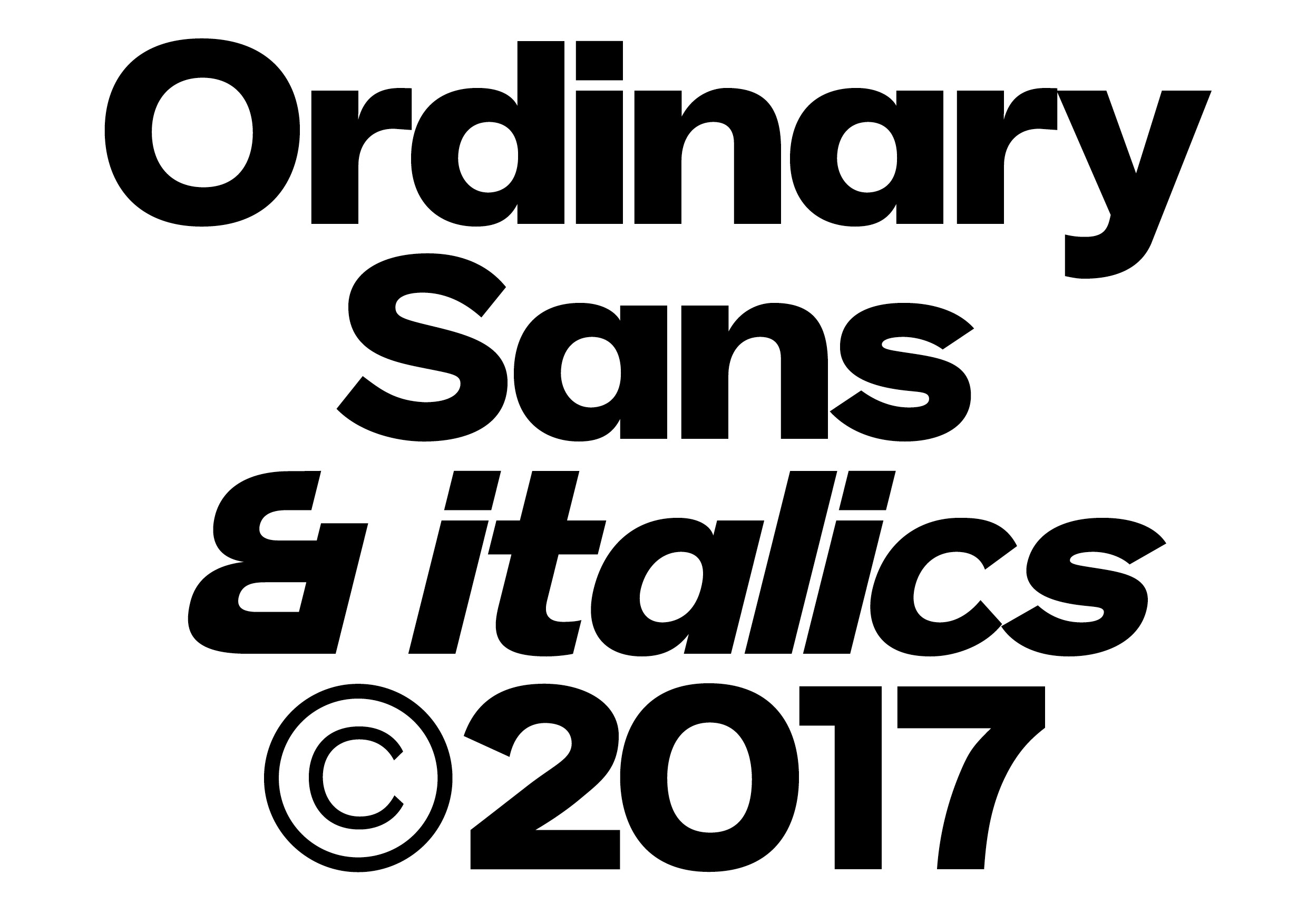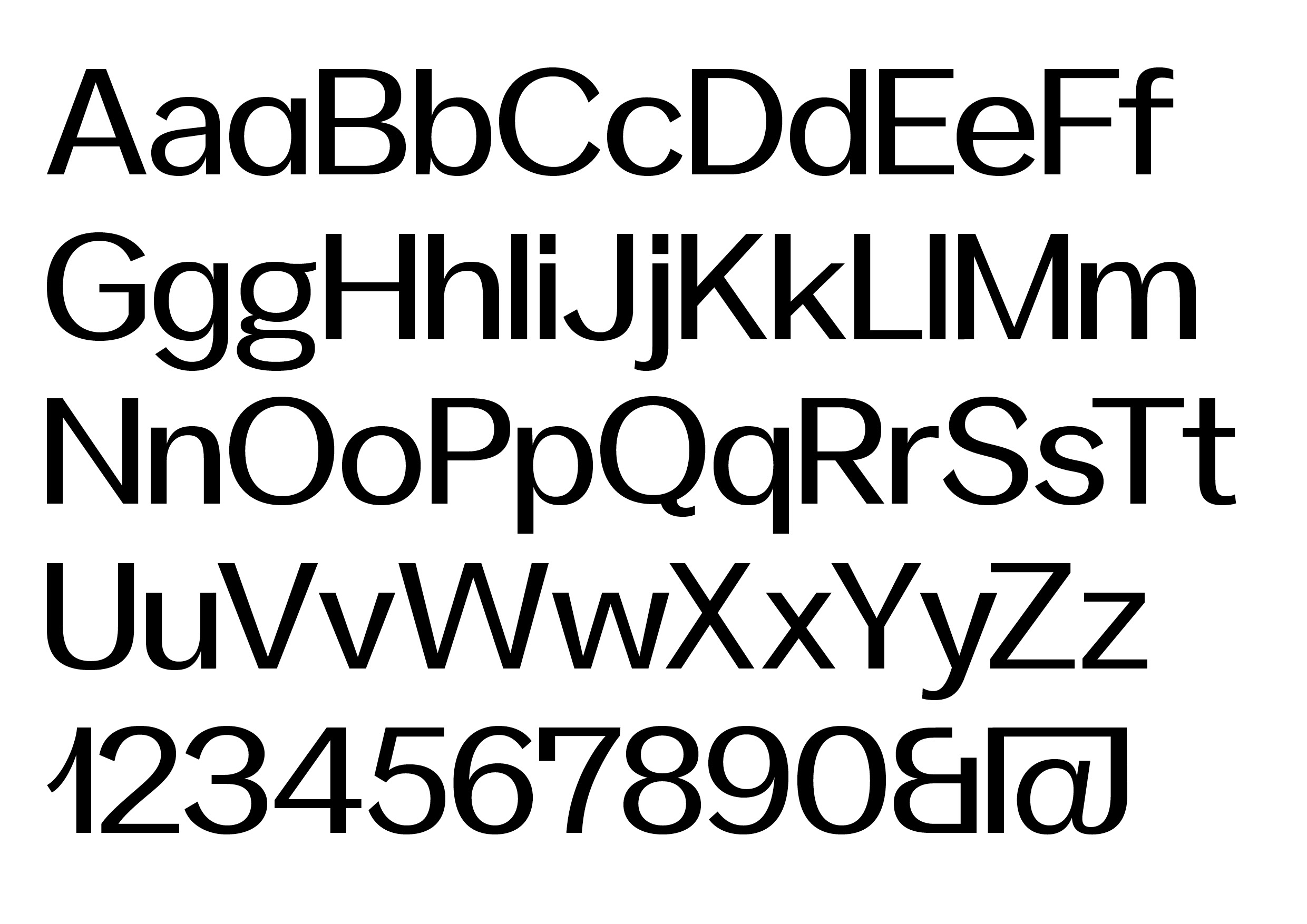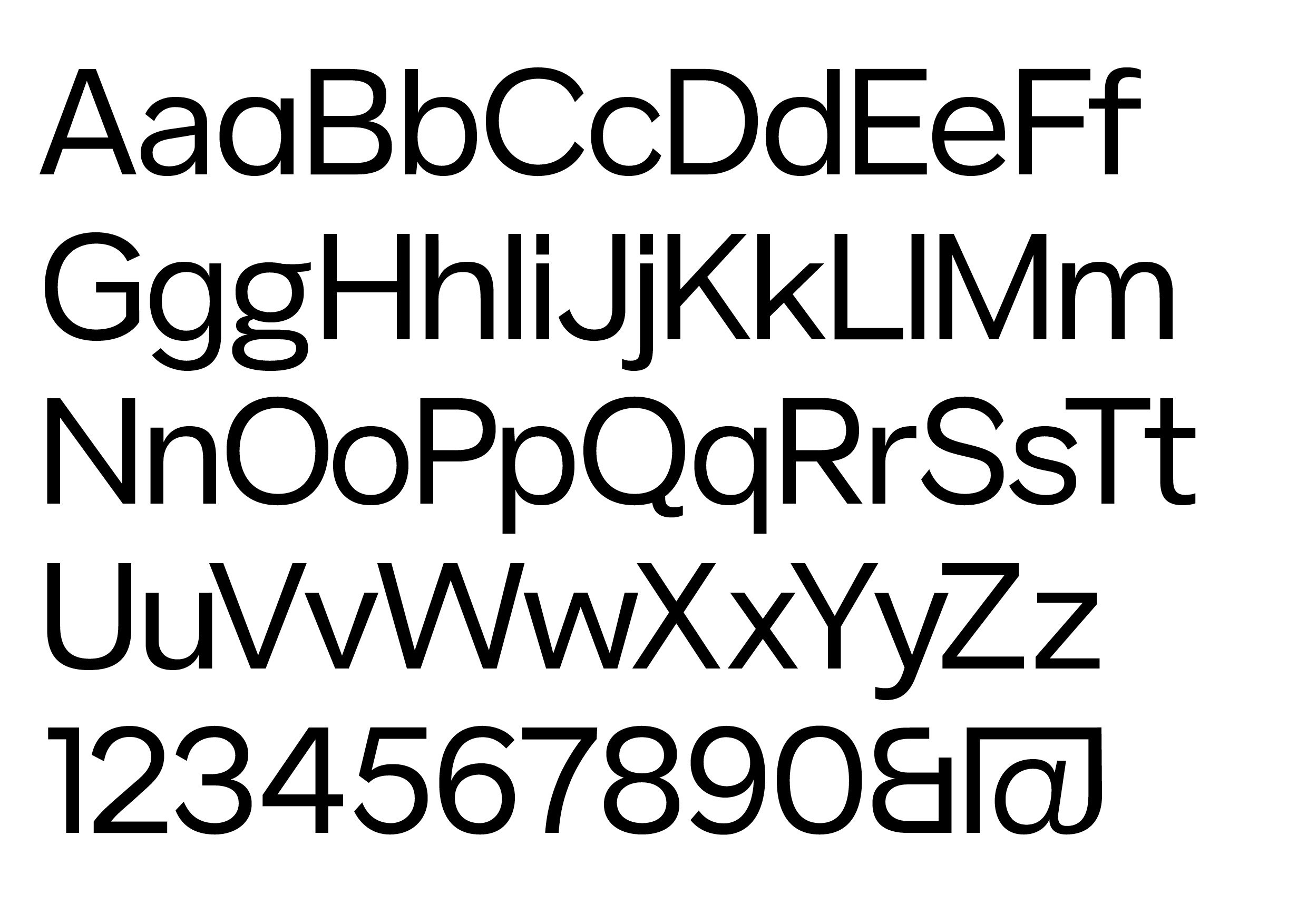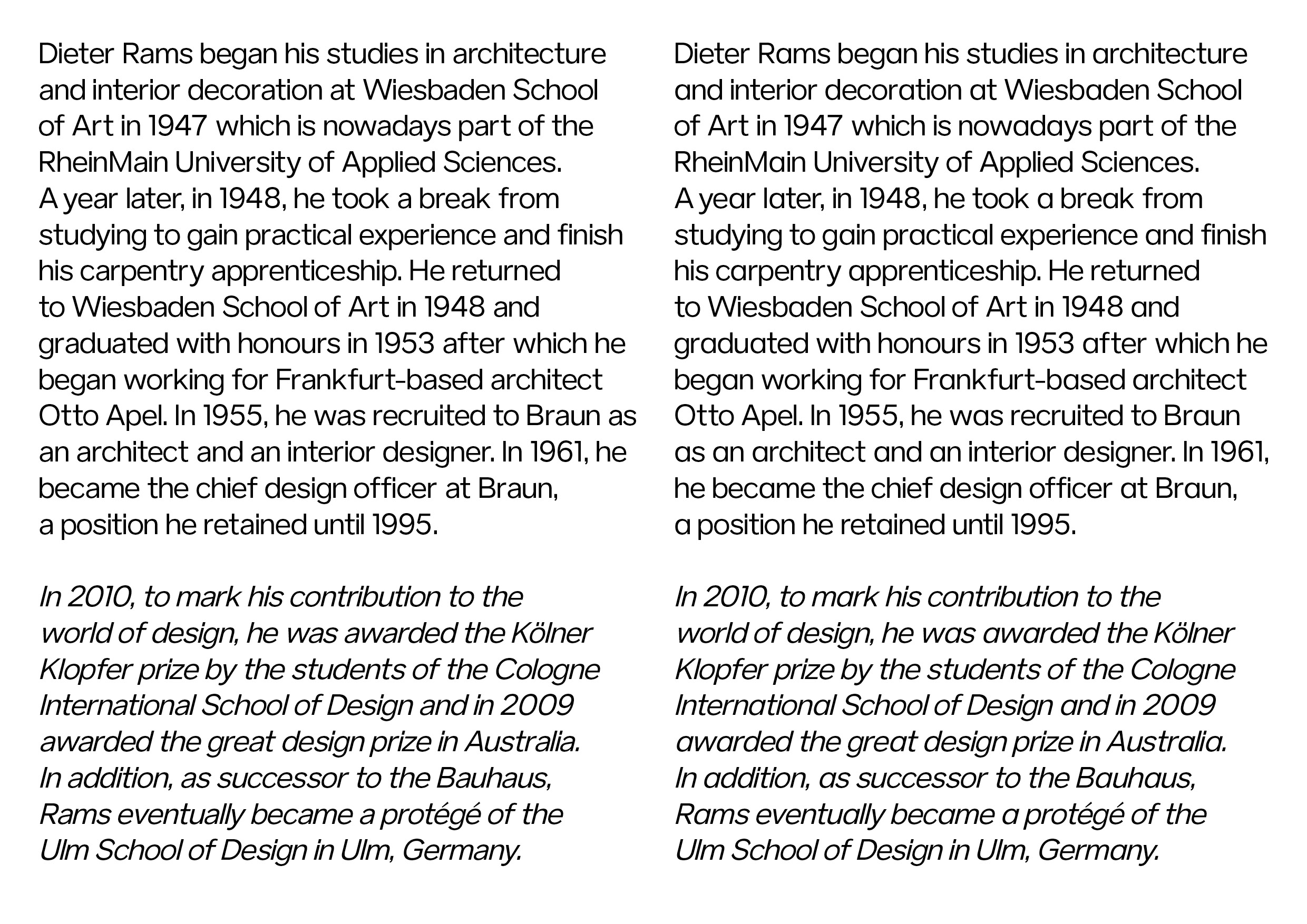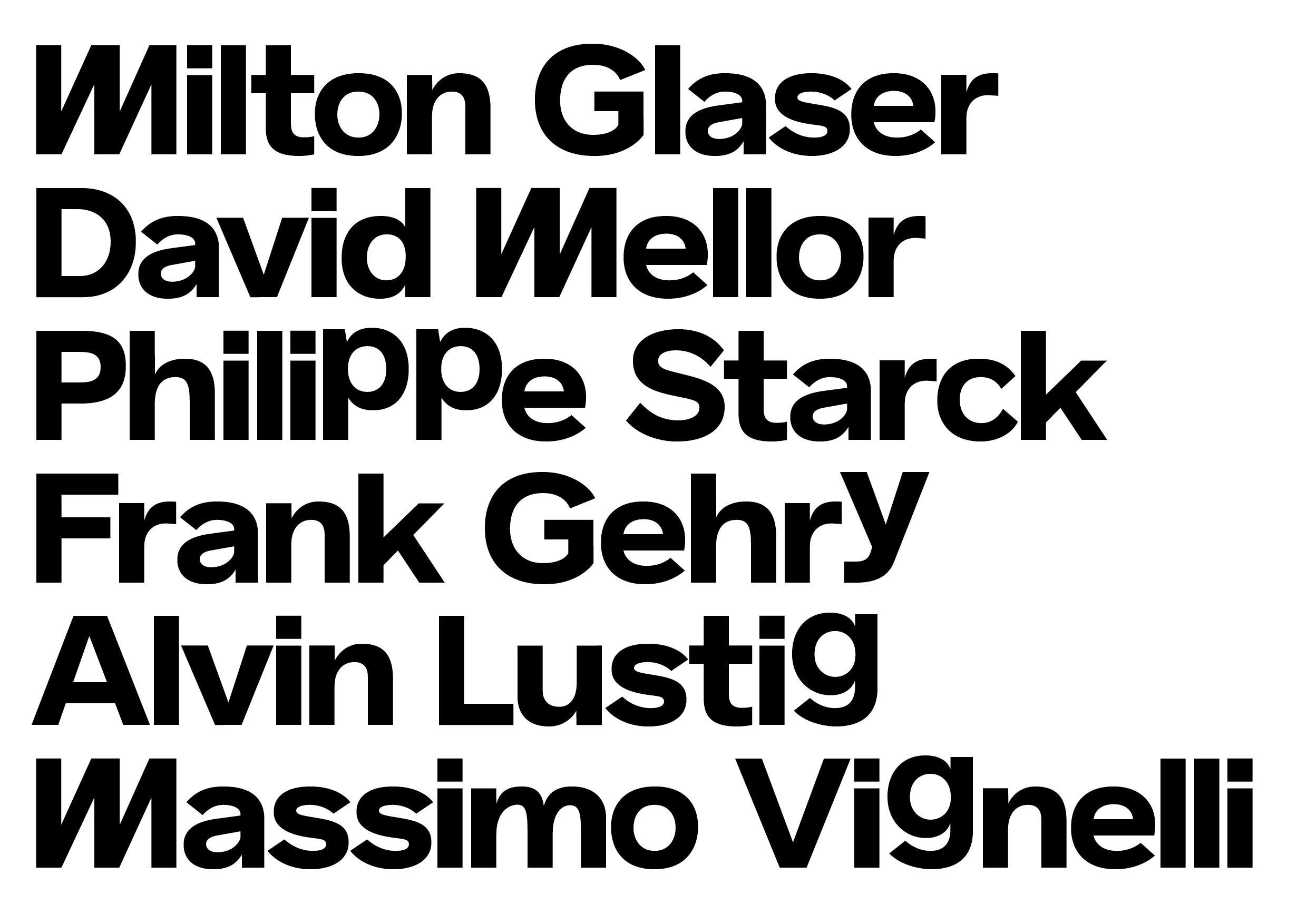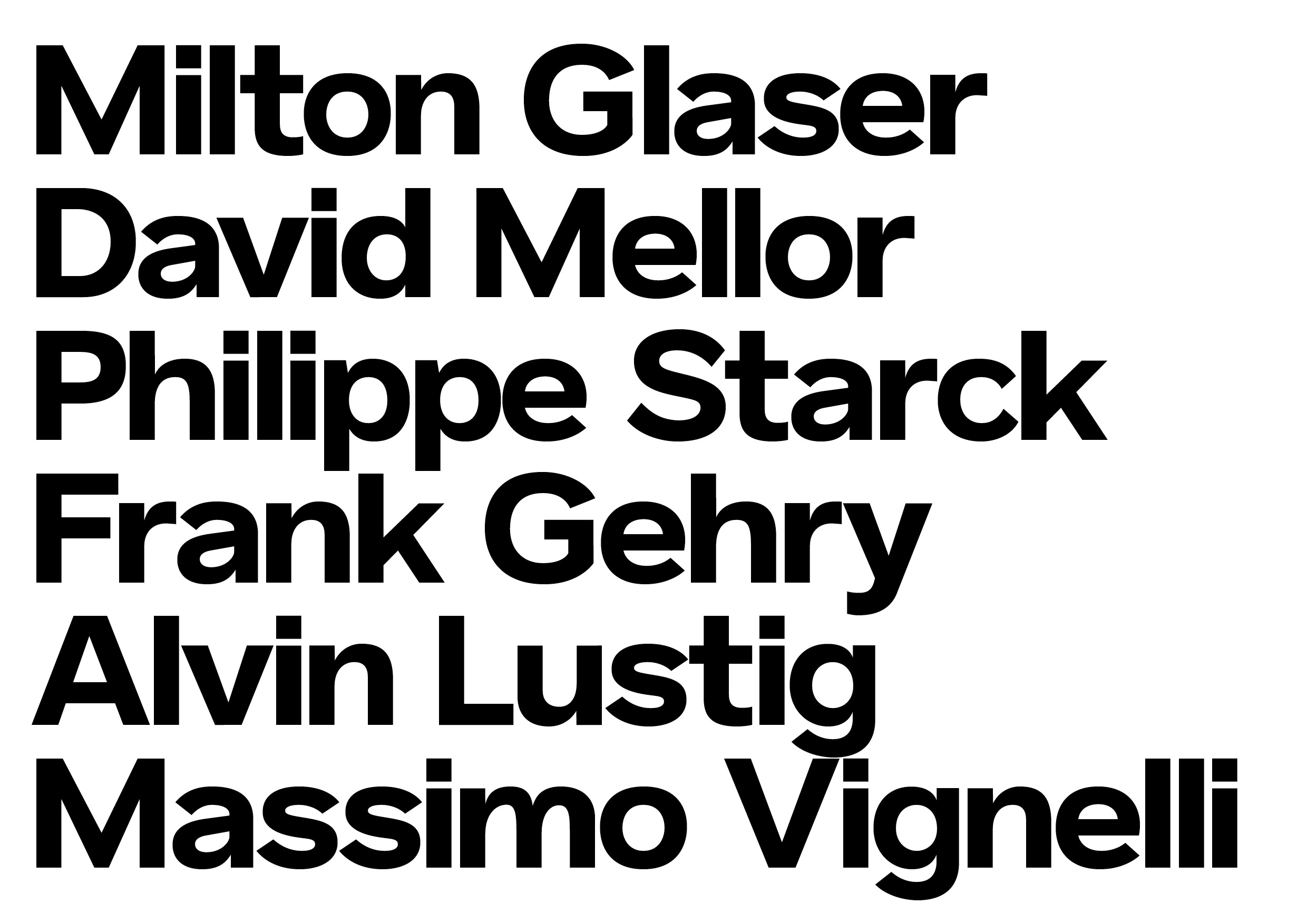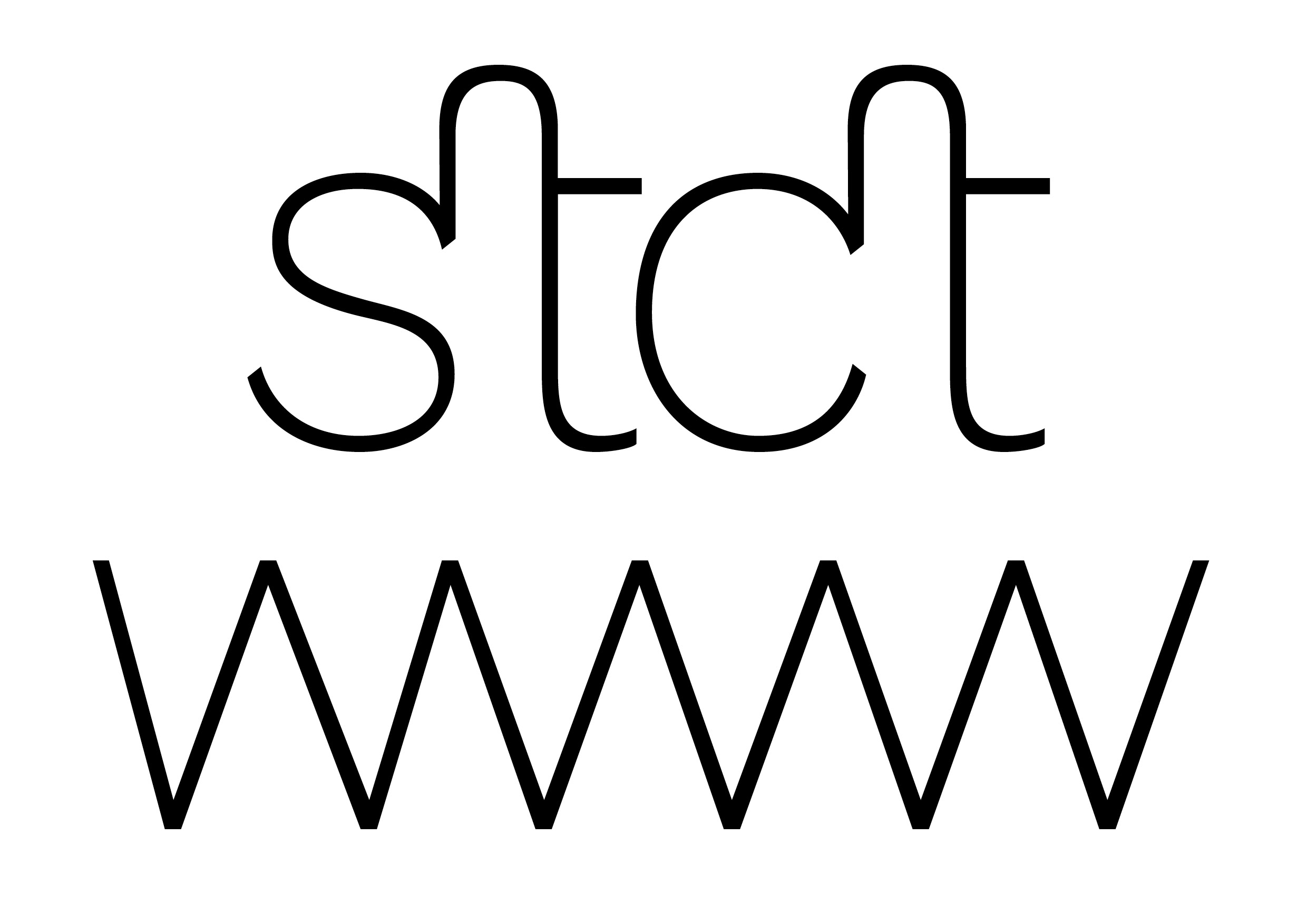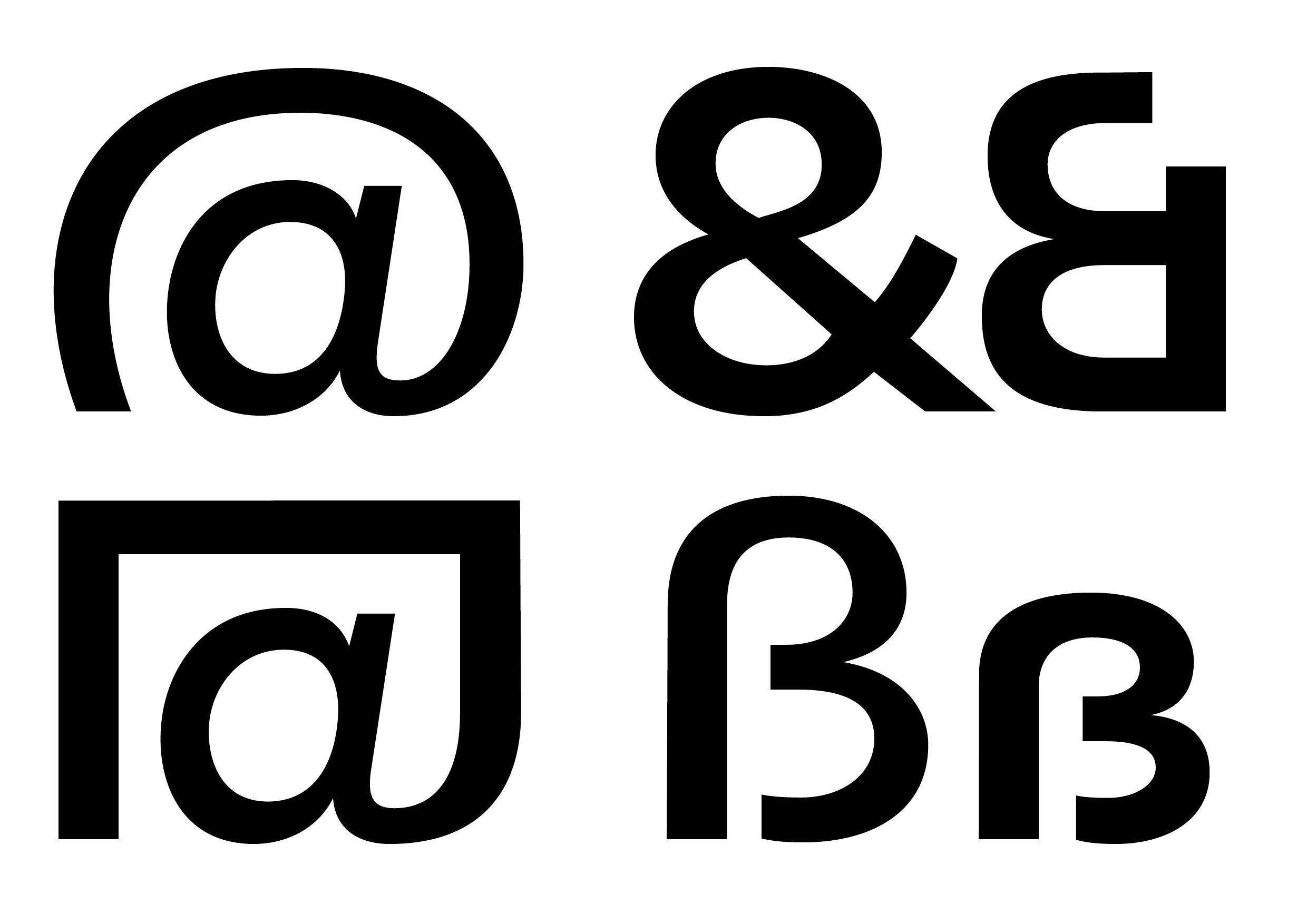
Ordinary
Most of life is ordinary. That's what makes it interesting. The chair you sit in every morning. A receipt from somewhere you don't remember going. The lettering above the dry cleaner. Things become invisible when we see them often enough. Ordinary began with that idea and the quiet beauty hidden inside familiar things. Its shapes are clean and simple at first. Spend more time with them and small differences start to appear. That was always the point. Ordinary was designed as a companion to Everyday and made for extensive use. Something you can live with for a long time and still find something new in.